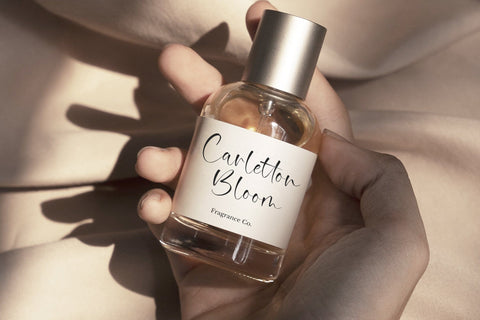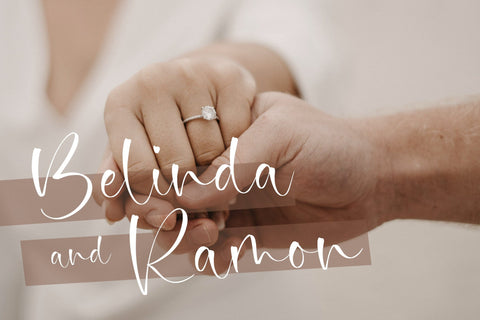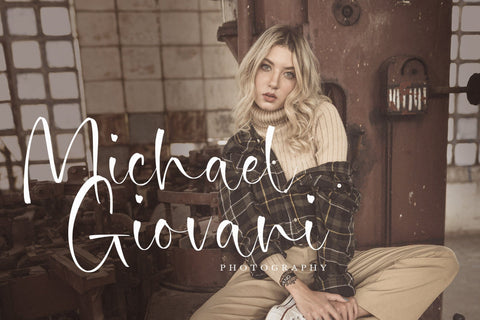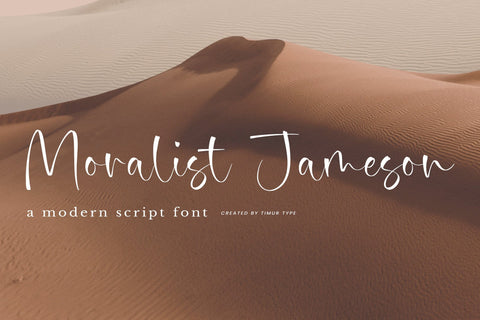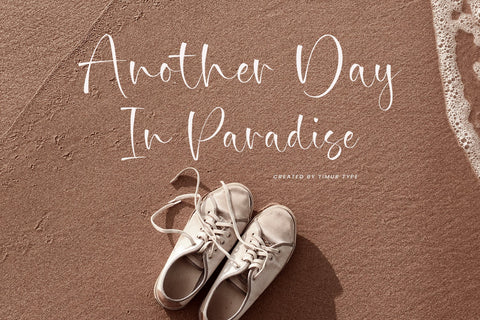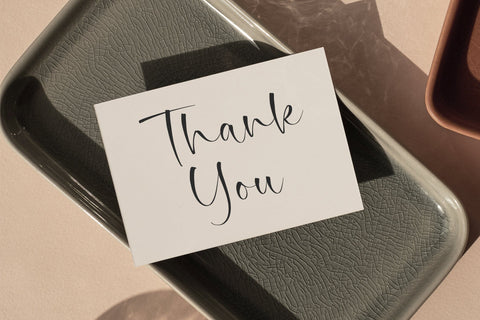
Moralist Jameson - Modern Script font
Moralist Jameson is a Modern Script font , which was created with great care and specially created for you .
Moralist Jameson is best for:
- logos, branding, & Signatures.
- Flyers, Album cover, Magazine, & Advertisements.
- Website design , design blogs, & fashion.
- Quote graphics for social media.
- and also it works great for other projects.